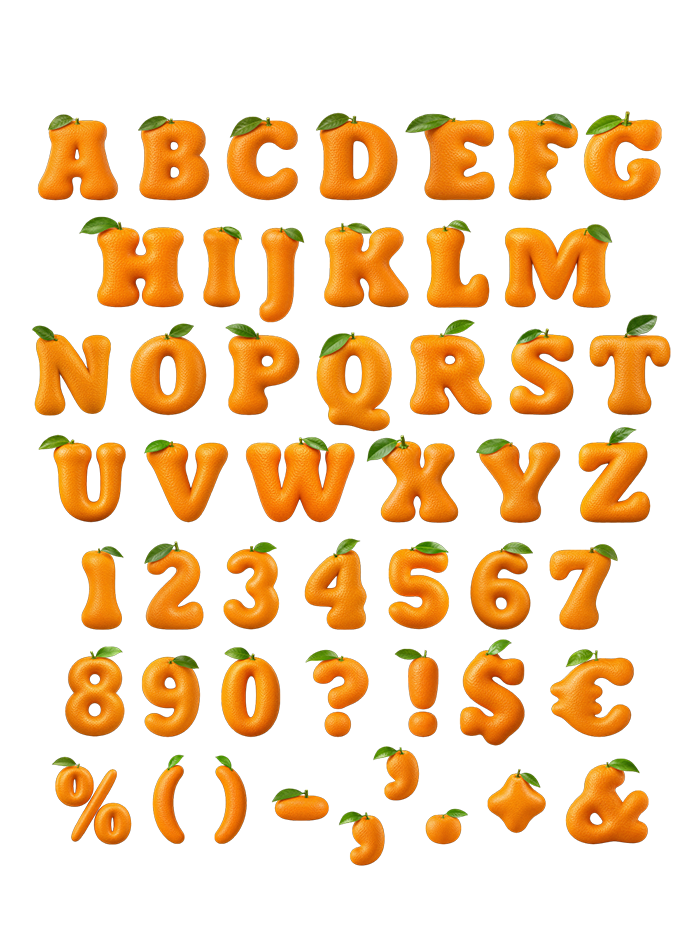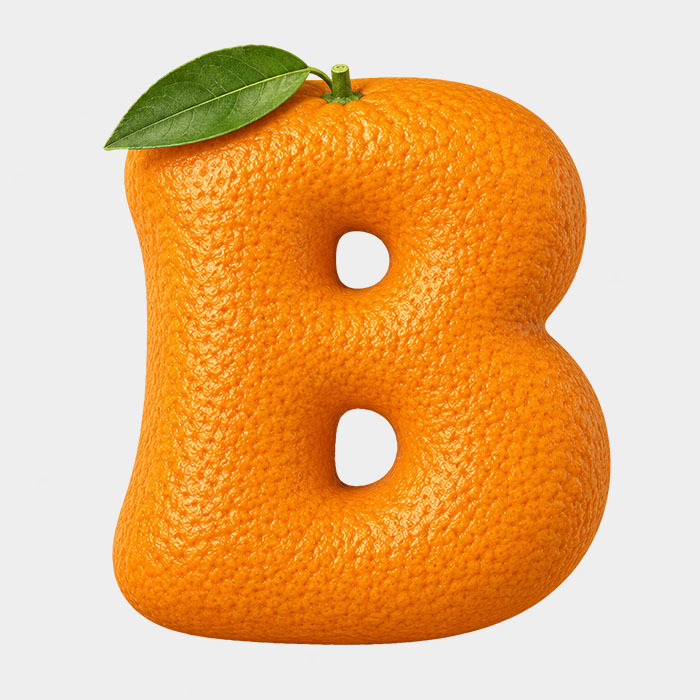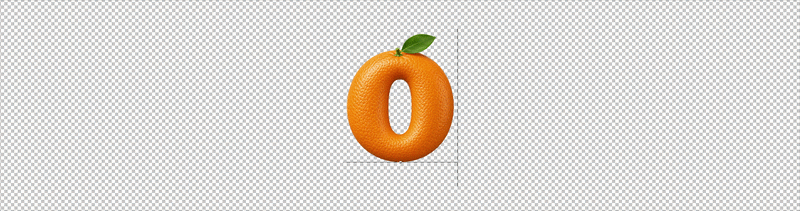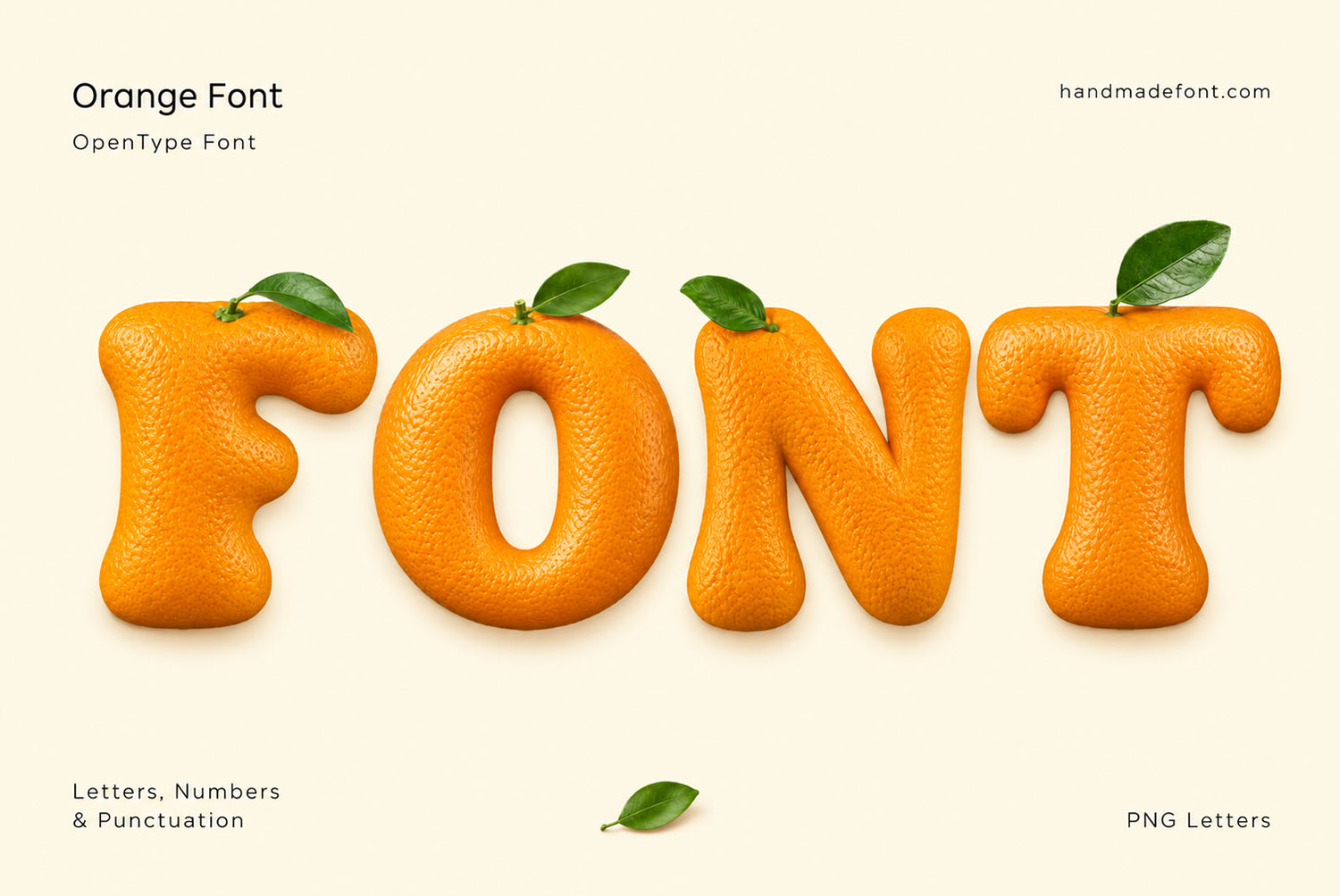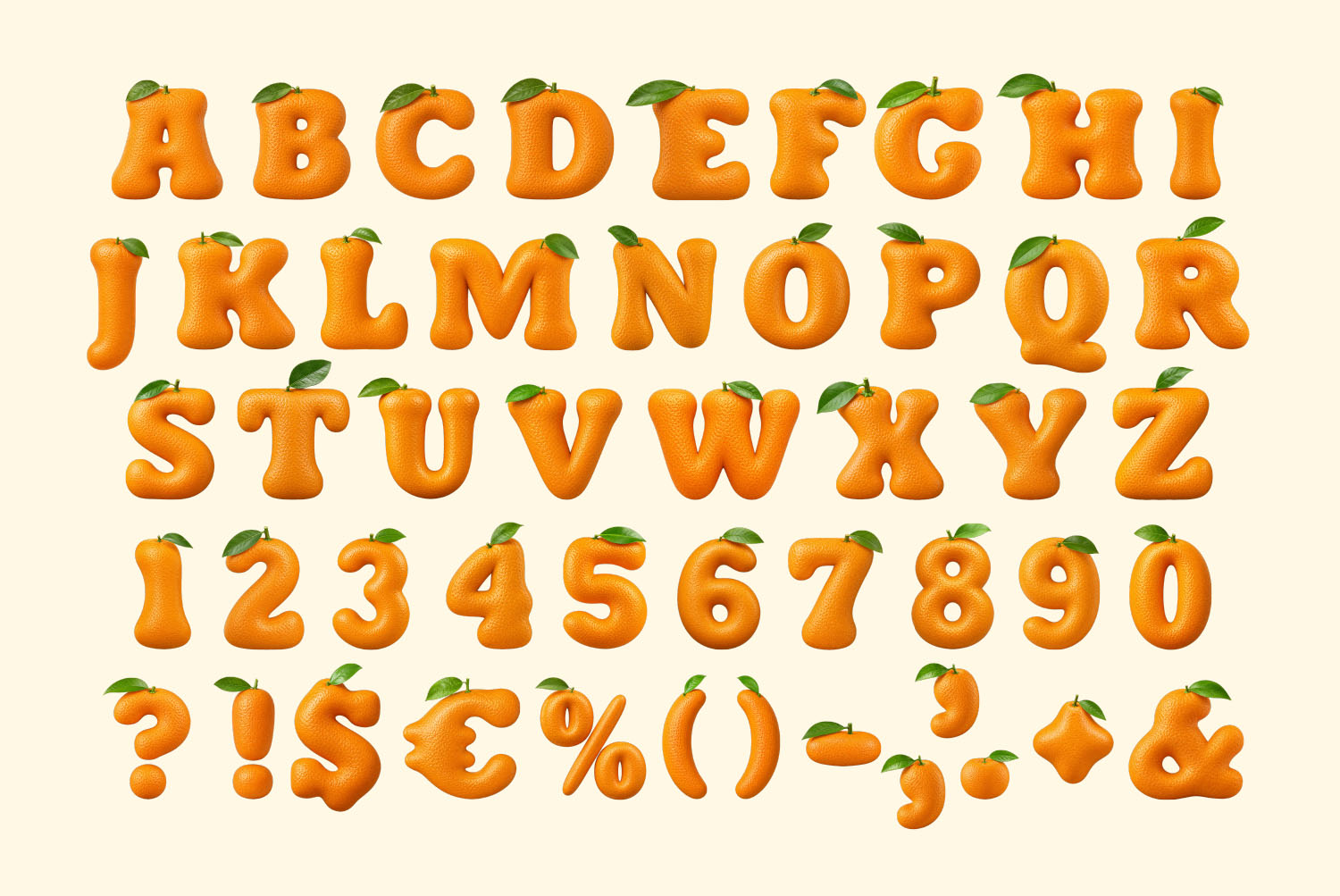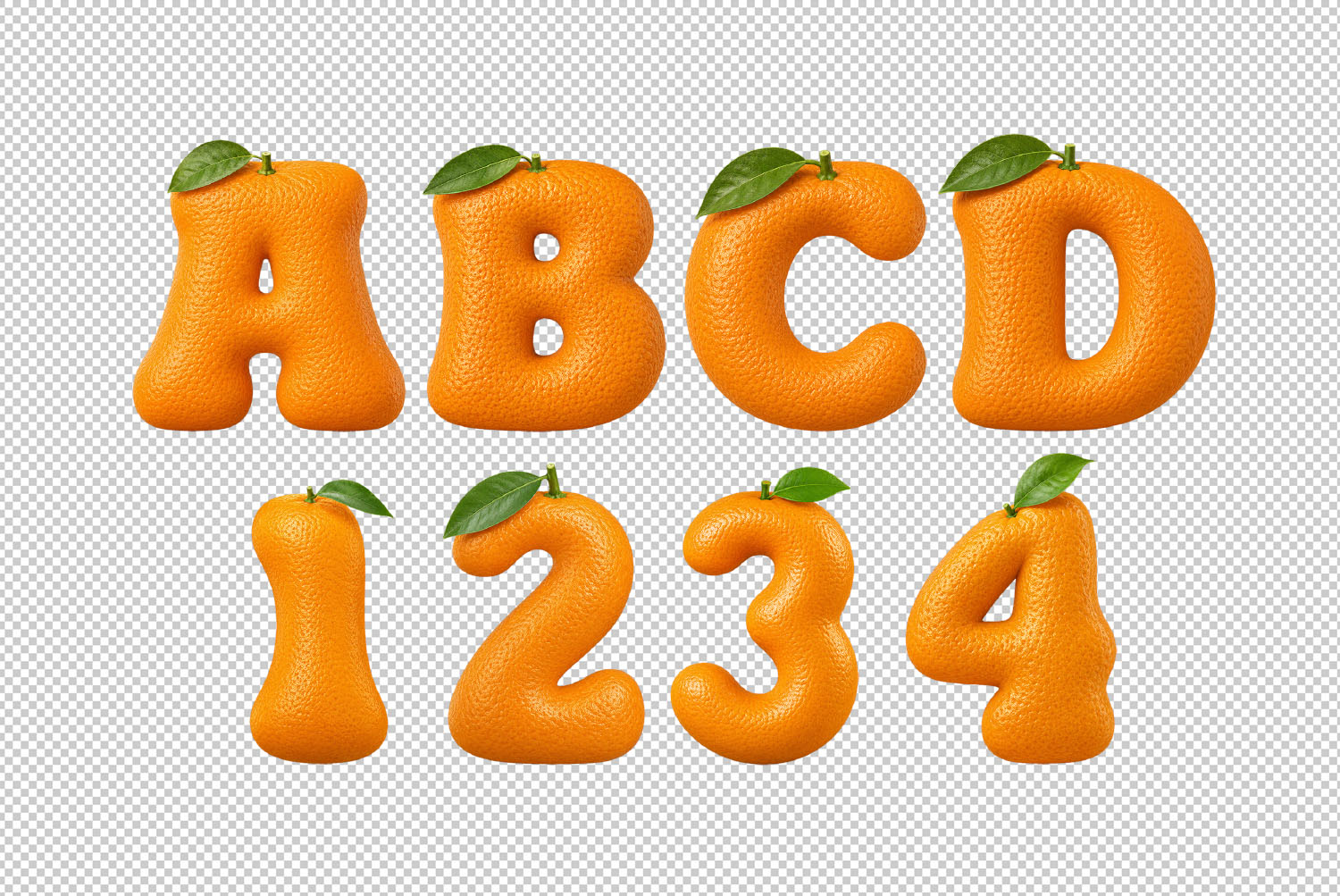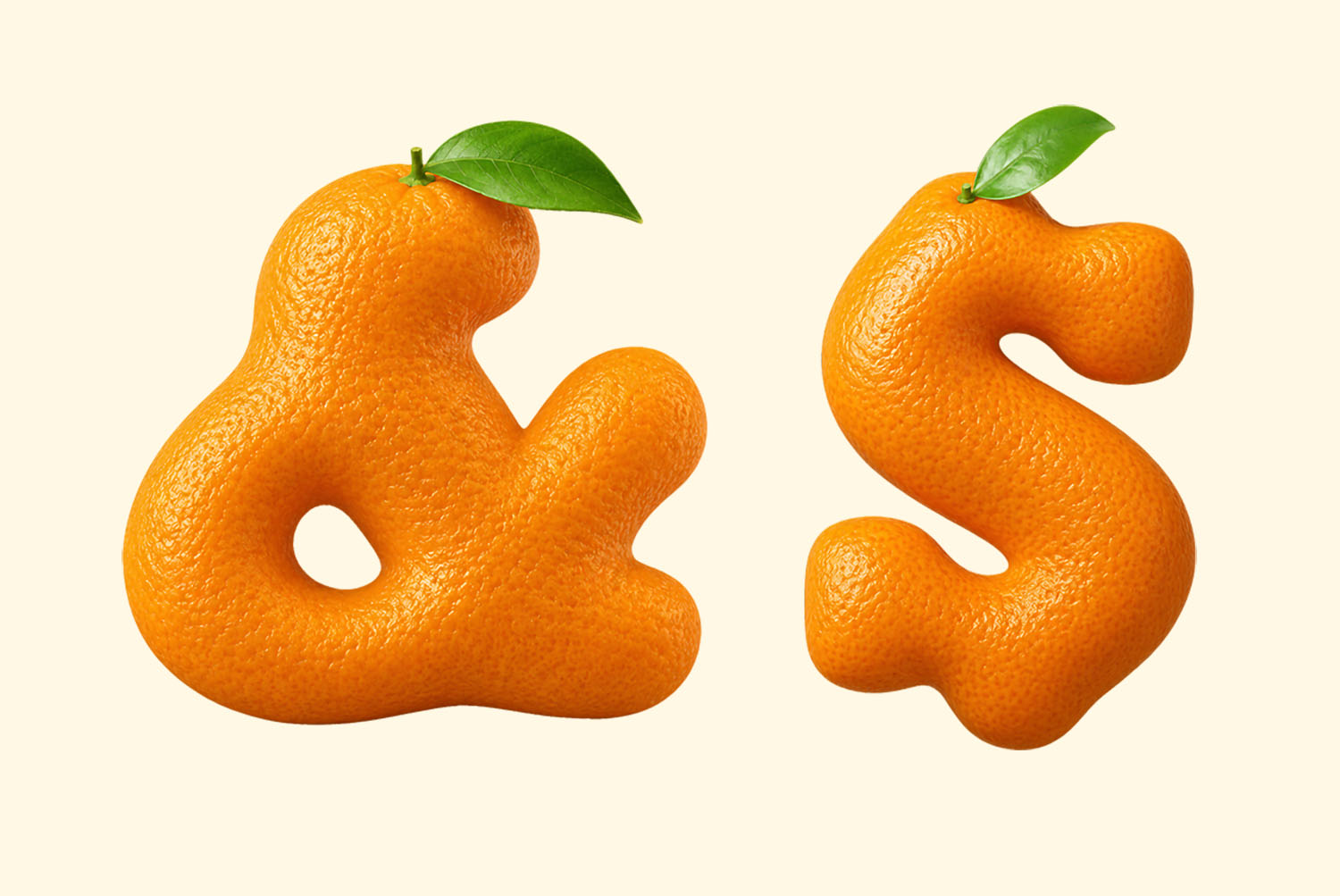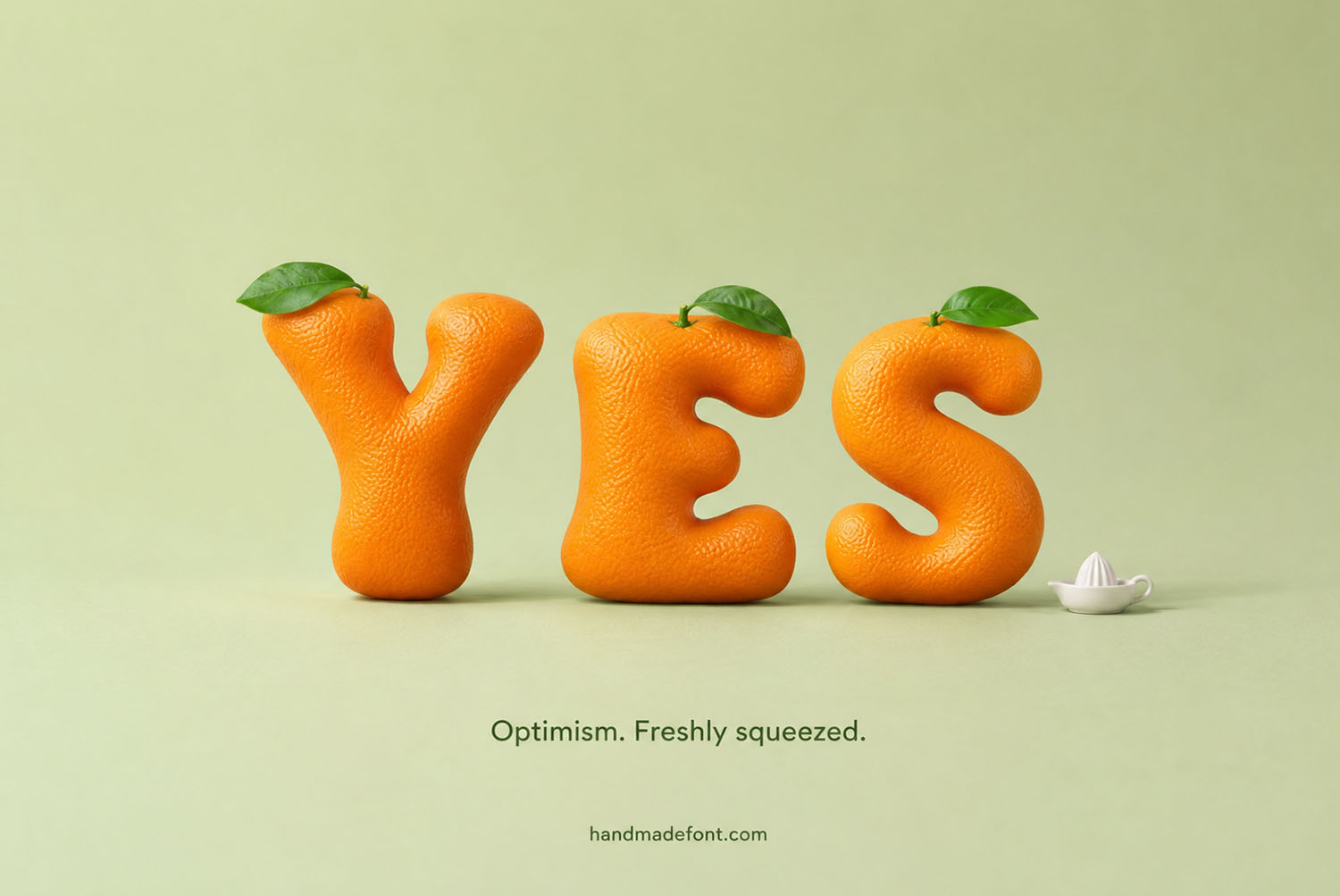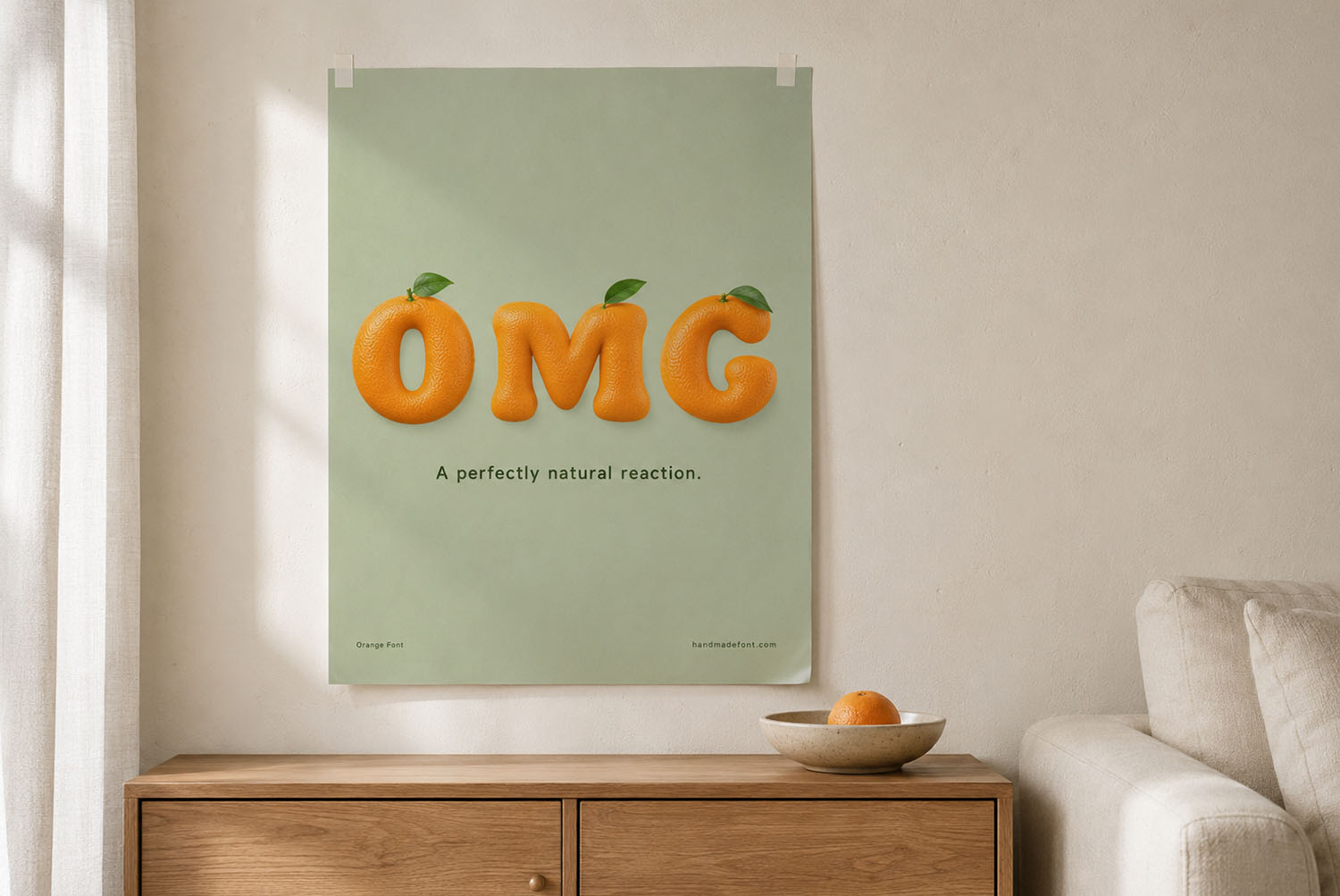
Orange Font. Plump 3D Alphabet Made Like Real Oranges
Orange Font turns each letter into a plump, photorealistic orange, complete with dimpled peel texture and a little green leaf on top. It’s a color OpenType font, so it needs software that supports color glyphs, though it also opens fine in InDesign, Keynote, PowerPoint, and Word. A cheerful pick for citrus branding, juice bars, and summer-themed design.
Orange Font: A Full Alphabet Made Like Real Oranges
Orange Font turns each letter into a plump, photorealistic whole orange, leaf and stem included. Because every character keeps the same dimpled peel texture, the alphabet reads as one consistent fruit stand rather than a random mix. As a result, headlines look bouncy and playful without any extra styling. Meanwhile, the color stays a rich, even orange across every letter, so longer words hold together visually.
A Complete Character Set, Not Just a Few Letters
The set covers the full uppercase alphabet, numbers, and common punctuation and currency symbols. So it works for prices, dates, and full sentences, not only single words. Since every glyph is built the same way, the texture stays consistent across long headlines. Consequently, the alphabet reads as one cohesive typeface rather than a handful of matching fruit props.
orange fruit letters animation
Built as a Color OpenType Font
Where the Orange Font Fits
orange font logo preview with FONT spelled out
orange font alphabet numbers and symbols
orange font transparent PNG letters and numbers
orange font ampersand and letter S closeup
orange font used in YES poster with a juicer
orange font on OMG framed wall poster
orange font ZING poster with juice drops
orange font JUICY headline in a magazine layout
orange font RIPE display on a stone pedestal
orange font SUNNY billboard on a shop wall
orange font PULP poster with a spoon of pulp
orange font ZEST printed on a canvas tote bag
orange font SWEET poster on light blue background
orange font FRESH printed on a t-shirt
orange font FONT title card on a stone shelf